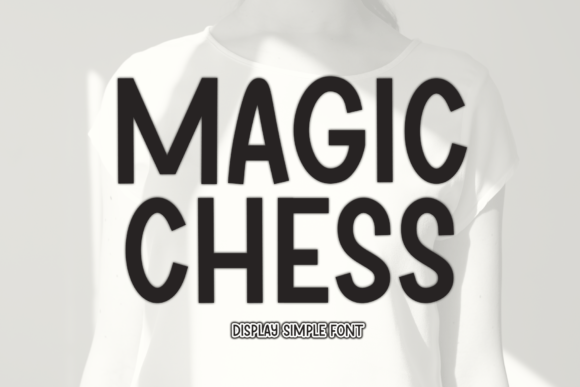
Magic Chess Font: Elegant Display Type for Handmade Creators
If you’ve ever held a hand-lettered wedding invitation or admired the quiet confidence of a boutique candle label, you know how much weight a single font carries. Magic Chess isn’t just another display font—it’s a subtle yet unmistakable signature of elegance, one that elevates physical products without shouting. As someone who designs printable templates, cuts vinyl for shop signs, and hand-presses greeting cards for local makers, I reach for Magic Chess when I need beauty *and* function in equal measure.
Magic Chess is a refined serif display typeface—clean but never cold, structured but full of warmth. Its letterforms balance gentle contrast with generous spacing, giving it strong readability at small sizes (think 12–16 pt on product tags) while still commanding attention at large scale (200+ pt on a farmhouse welcome board). It’s not ornate, but it’s intentional: each curve, serif, and stroke feels considered—not fussy, not trendy, just quietly confident. That’s why it works so well across handmade contexts where authenticity and polish must coexist.
Where Magic Chess Shines in Real Craft Projects
I use Magic Chess most often where first impressions matter—and where the font itself becomes part of the product’s perceived value. Here’s how it translates across actual shop needs:
- Wedding stationery: On ivory linen invitations or foil-stamped thank-you cards, Magic Chess sets a tone of timeless sophistication—no extra embellishment needed. It reads beautifully as a couple’s names on a ceremony program or as a delicate “Mr. & Mrs.” on a keepsake box.
- Product labels & packaging: For soy candles, artisanal soap, or small-batch honey, Magic Chess lends premium credibility. I’ve used it at 14 pt on 1.5” kraft paper tags with excellent cut accuracy on my Cricut Maker—no lost serifs, no jagged edges.
- Digital printables & planner pages: Because its x-height is generous and spacing consistent, Magic Chess remains legible even when printed at 8 pt in monthly habit trackers or quote-based wall art PDFs. Customers consistently comment that it “feels like a real designer chose it.”
- SVG designs & craft cut files: When converted to vector paths for Silhouette Studio or Cricut Design Space, Magic Chess holds up cleanly—even with tight curves in letters like “e” and “g.” I avoid using it below 10 pt for intricate die-cut stickers, but at 12 pt and up, it’s reliably crisp.
- Seasonal & boutique signage: From Easter egg hunt signs to holiday market banners, Magic Chess adds warmth without leaning into cliché. It pairs especially well with natural textures—burlap, reclaimed wood, uncoated cardstock—because its structure grounds whimsy in sincerity.
Readability, Scaling & Practical Production Notes
Here’s what matters when you’re cutting, printing, or selling: Magic Chess is designed for display use, not body text. Use it for headlines, titles, names, short quotes, and decorative phrases—not paragraphs. That said, its clarity makes it unusually versatile for a serif display font. At 18 pt on matte-finish business cards, it’s sharp. At 36 pt on a chalkboard-style welcome sign, it feels substantial—not thin, not overwhelming. And because it includes standard OpenType features like ligatures and stylistic alternates (check your software’s glyph panel), you can soften a phrase like “Thank You” with a custom “Th” ligature or add subtle flair to initials.
Smart Pairings for Cohesive Branding
Magic Chess thrives alongside complementary fonts—not competitors. My go-to pairings reflect real production needs:
- With a soft script font (like a delicate brush script) for contrast: Magic Chess anchors the layout, while the script adds personality—perfect for wedding suites or boutique gift tags.
- With a clean sans serif (think Montserrat Light or Poppins Regular) for balance: Magic Chess handles the headline; the sans takes care of details, ingredients, or care instructions—ideal for product packaging and digital templates.
- With a warm serif body font (like Lora or Merriweather) for editorial-style printables: Magic Chess opens a quote; the secondary serif carries the reflection beneath it—great for inspirational wall art or journal prompts.
Avoid pairing Magic Chess with other high-contrast serifs or overly decorative scripts—they compete instead of converse. Simplicity is its strength.
What stays consistent across every project? Magic Chess doesn’t distract. It doesn’t date quickly. And it never asks more from your printer, cutter, or customer than it delivers in return: quiet elegance, clear communication, and the kind of thoughtful detail that makes people pause—and remember your brand.